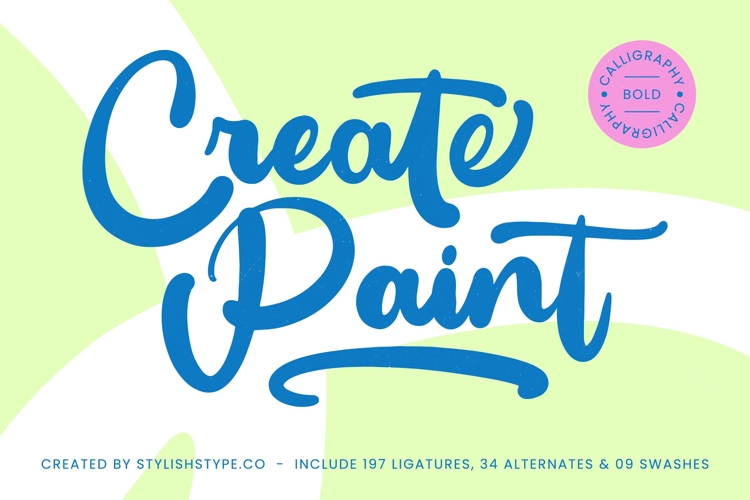
Create Paint - Bold Calligraphy Font
Elevate your designs with the distinctive charm of Font Create Paint - Bold Calligraphy Font Script. This exquisite typeface captivates with its dynamic, handcrafted aesthetic, perfectly blending the authenticity of traditional calligraphy with a modern, expressive flair. Its bold, confident strokes convey warmth and personality, making it an exceptional choice for projects demanding both impact and artisanal elegance. The unique texture imbued within each character adds a layer of genuine craftsmanship, ensuring your typography feels both unique and engaging.
Unleash unparalleled creative flexibility with Font Create Paint - Bold Calligraphy Font Script, engineered for sophisticated customization. Featuring an impressive array of 197 ligatures, 34 alternates, and 09 swashes, this font provides boundless possibilities for crafting truly unique typographic compositions. These extensive OpenType features empower designers to achieve a seamless, natural flow, transforming ordinary text into a visually rich narrative that stands out with its intricate details and polished appearance.
Expand your creative reach globally with Font Create Paint - Bold Calligraphy Font Script. With its extensive multilingual support, Font Create Paint - Bold Calligraphy Font Script adapts seamlessly across global markets, making it incredibly versatile for international projects. This crucial feature ensures your message resonates authentically with diverse audiences, facilitating global brand consistency and enhancing the font's utility across various linguistic contexts without compromising its distinctive style.
Perfect for making a memorable statement, Font Create Paint - Bold Calligraphy Font Script is ideally suited for luxury branding, exclusive packaging, captivating editorial design, and sophisticated event invitations. Its vibrant character makes it an excellent choice for compelling headlines, engaging social media graphics, and merchandise that demands a touch of handcrafted artistry. Choose this font to infuse your projects with a compelling blend of modern vitality and timeless calligraphic grace.